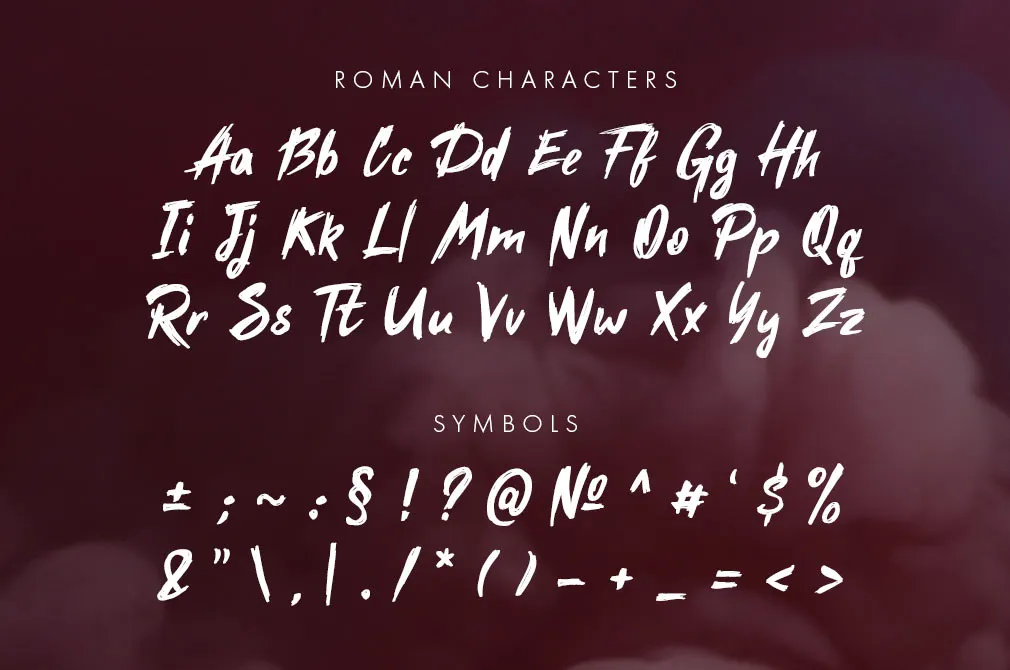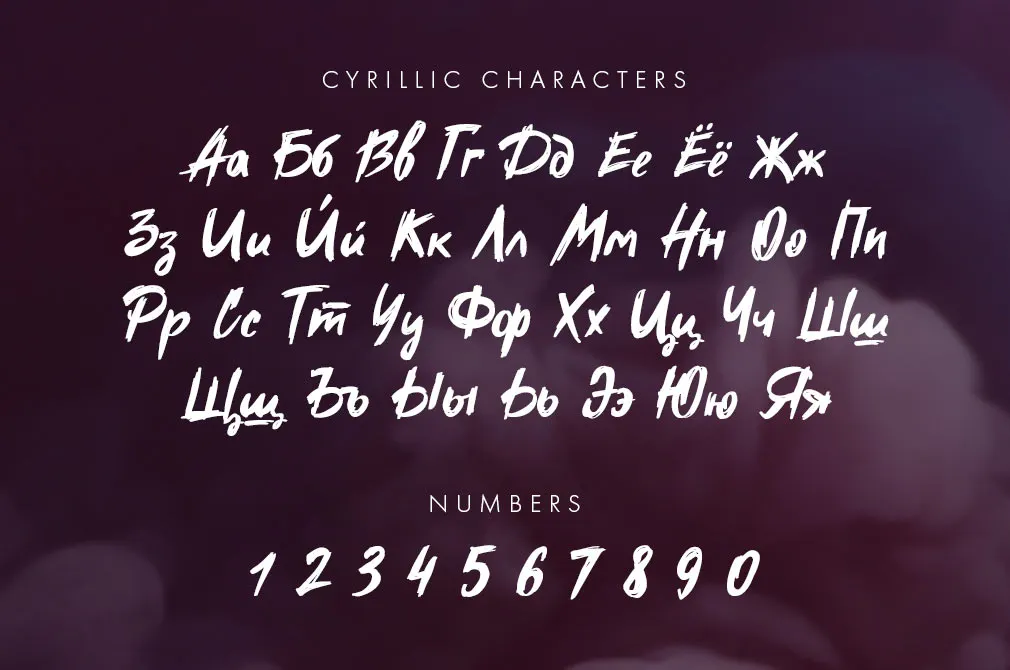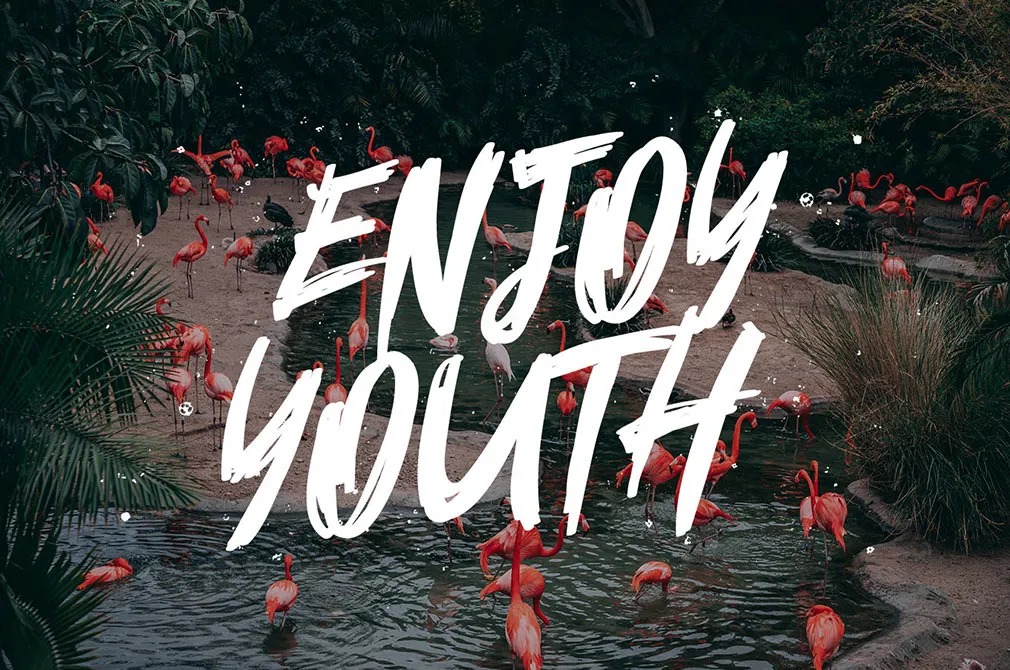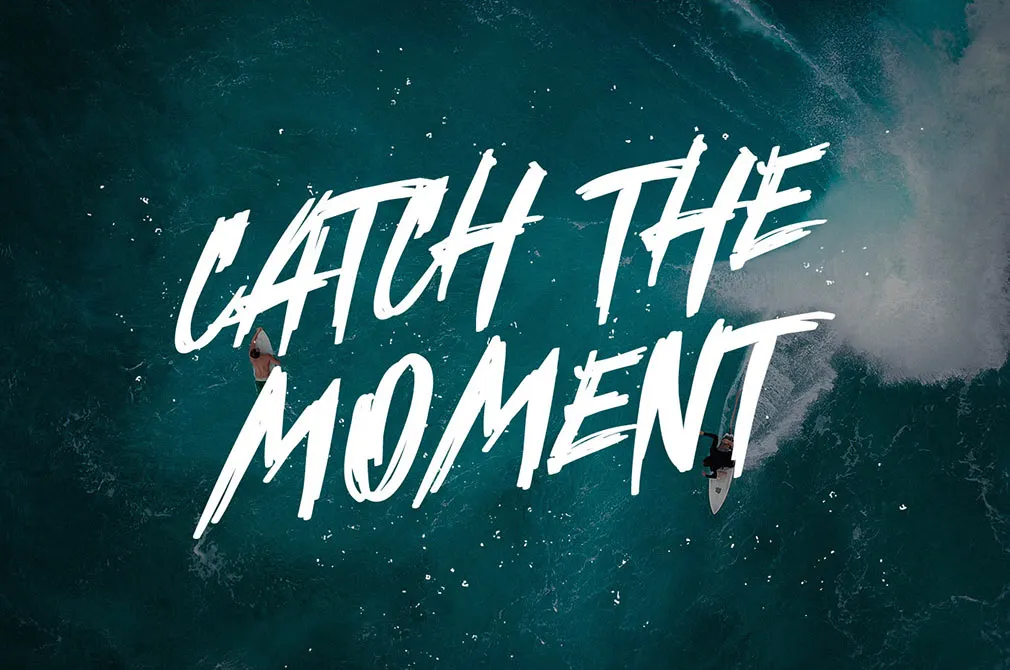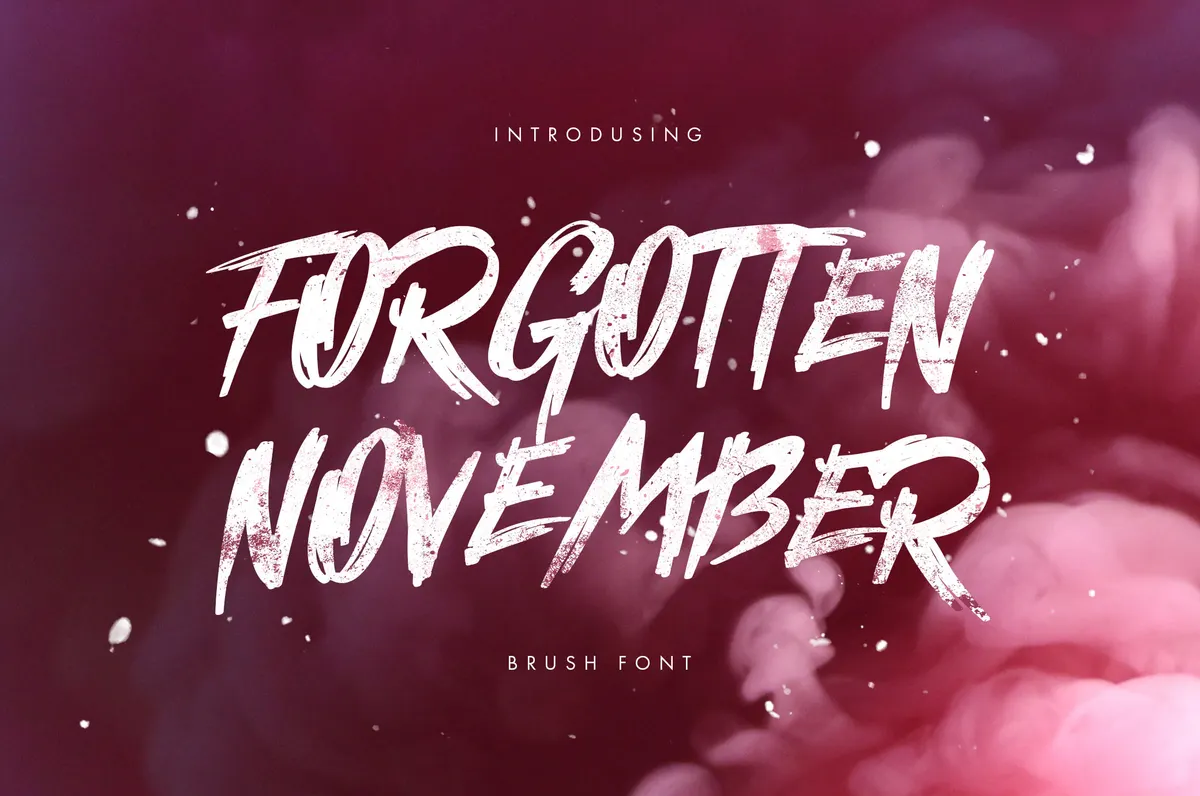
Forgotten November Brush Font
There're brush typefaces for all sorts of design projects. Forgotten November, however, stands out and is doomed to bring vibrancy and let you write the words you'd prefer to shout loud.
With ultimate energy and rebel hidden in every character, this brush font will be a great final stroke to tons of various design projects, that you aim to have as eye-popping as possible: logos, greeting cards, product packaging, t-shirts, handwritten quotes and so much more. Also, some awesome news for those, who search for a cover-all typeface: Forgotten November comes with uppercase and lowercase characters, a large set of punctuation glyphs, numerals, ligatures, Cyrillic characters, and multilingual support. May there be anything else to craft great artwork?